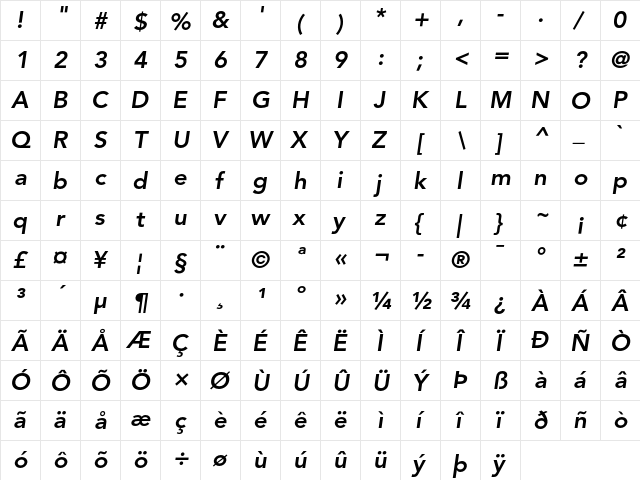
Avenir 85 Heavy Oblique
Design Context for Avenir Typeface
Avenir takes a measured approach to typography — its balanced proportions and neutral character make it a reliable workhorse for both digital and print work. The dynamic lean of this cut emphasises speed and emphasis in any layout.
Pro Tip: Use Avenir for emphasis, pull quotes, and subheadings where its slanted energy can add rhythm to the layout.